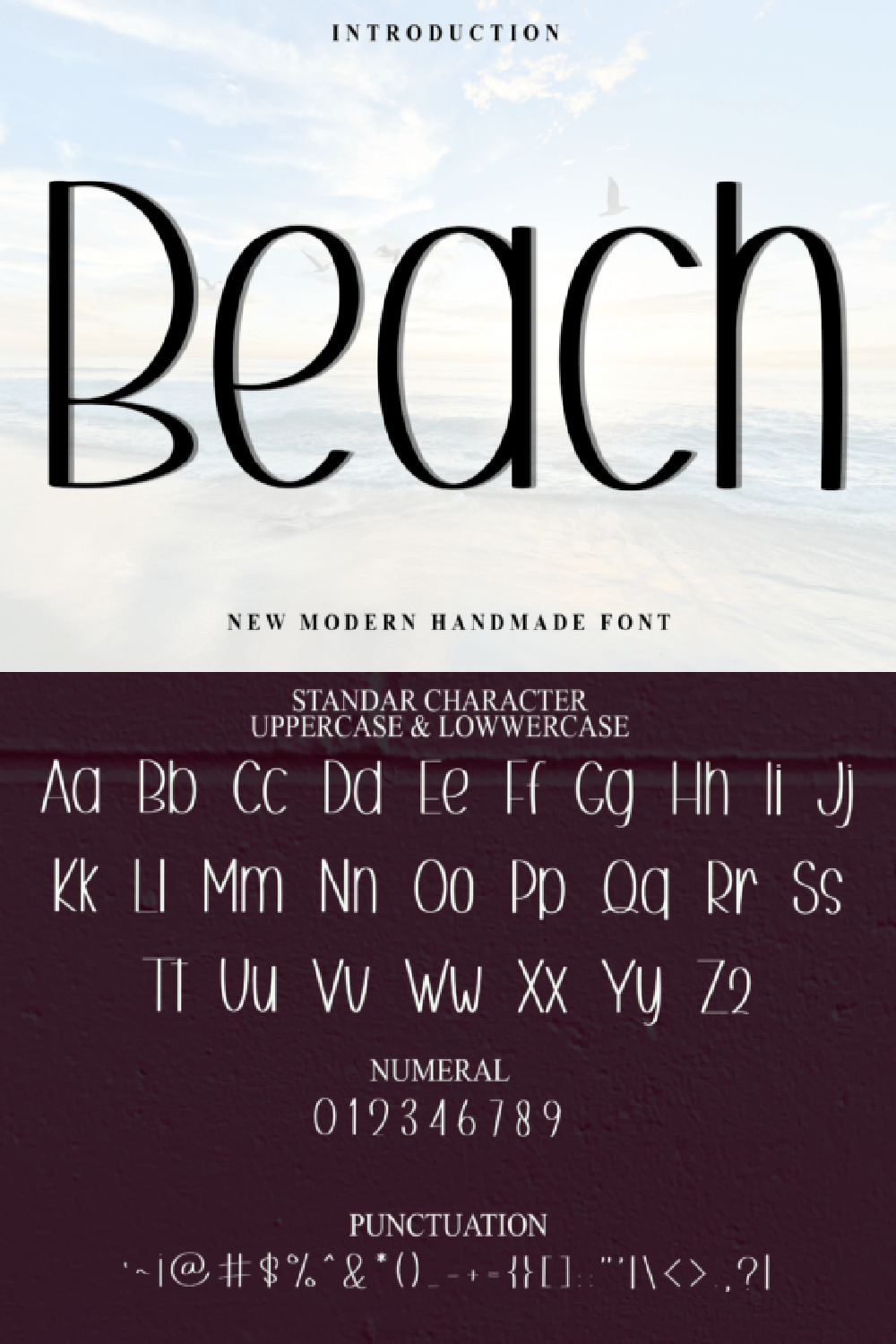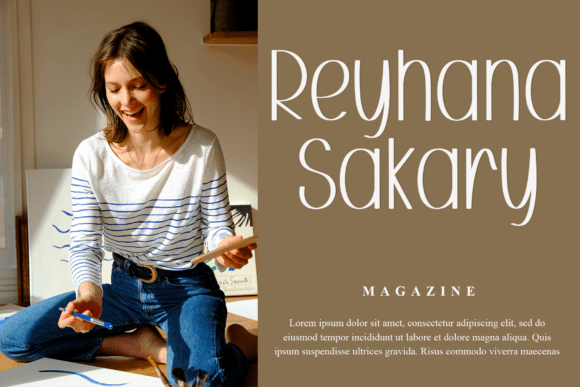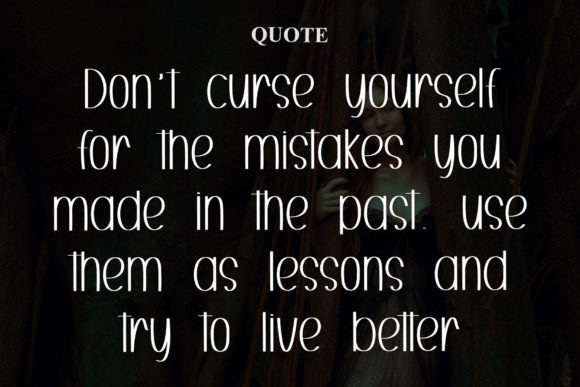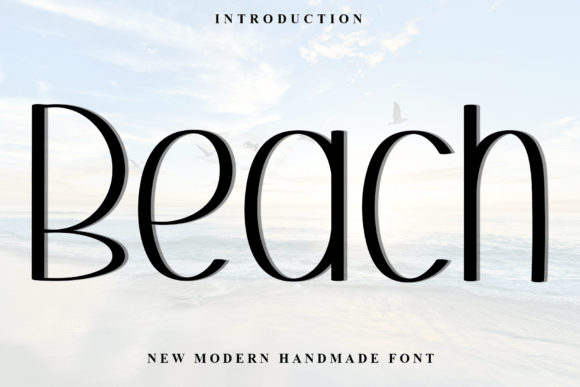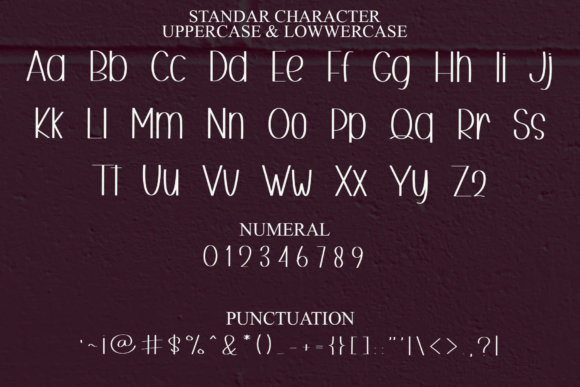
About the Beach Font
Unleash your creativity with Beach Font, a versatile font perfect for a wide range of applications. Beach is a festive and merry typeface that captures the spirit of the holiday season. With its decorative elements and whimsical flair, it adds a touch of enchantment to your designs. Perfect for greeting cards, gift tags, and holiday-themed projects, this font brings a cheerful and nostalgic ambiance to your words. Let your typography shine with the magic of Beautiful Font!